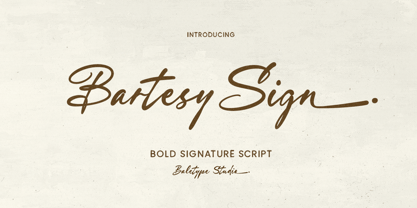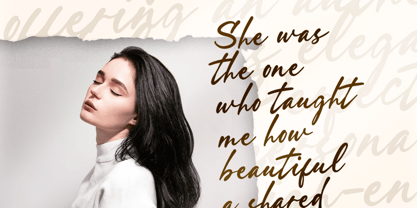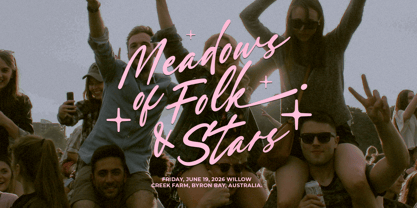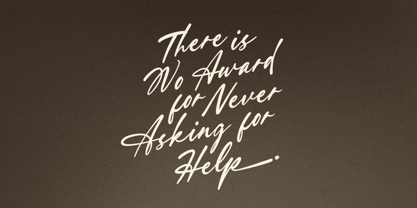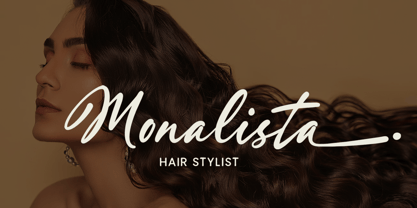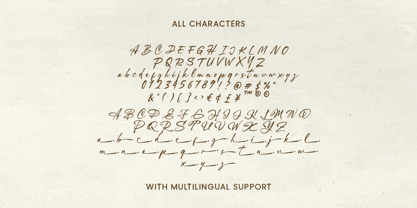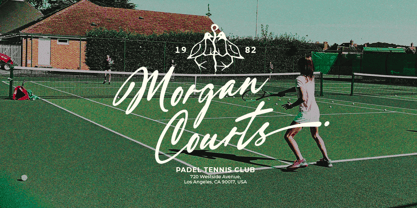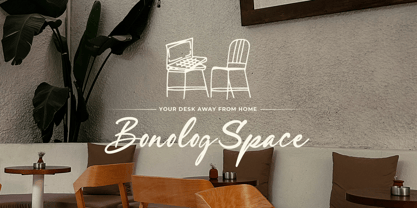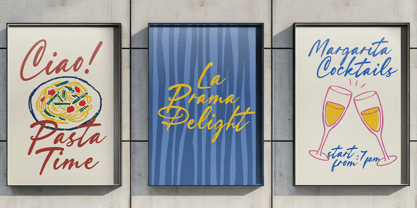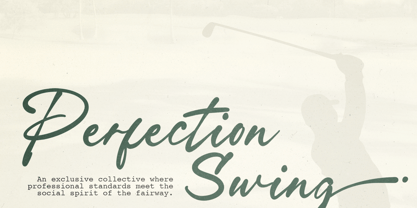
Bartesy Sign
by Bale Type
The Bartesy Sign Font Family was designed by Dzikrul Aulia and published by Bale Type. Bartesy Sign contains 1 styles. More about this family
Bartesy Sign is a bold handwritten script font with beautiful alternates that bring a natural and elegant signature style. This versatile font is perfect for a wide range of creative projects such as signatures, logotypes, logos, branding, quotes, wedding invitations, social media posts, and packaging designs. Featuring stylish long end swash alternates, Bartesy Sign allows you to create a more personal, classy, and eye-catching look that truly stands out. Carefully crafted with smooth curves and modern handwritten details, this font delivers both sophistication and readability. Bartesy Sign also supports multilingual characters, making it suitable for international design needs.
Designers: Dzikrul Aulia
Foundry: Bale Type